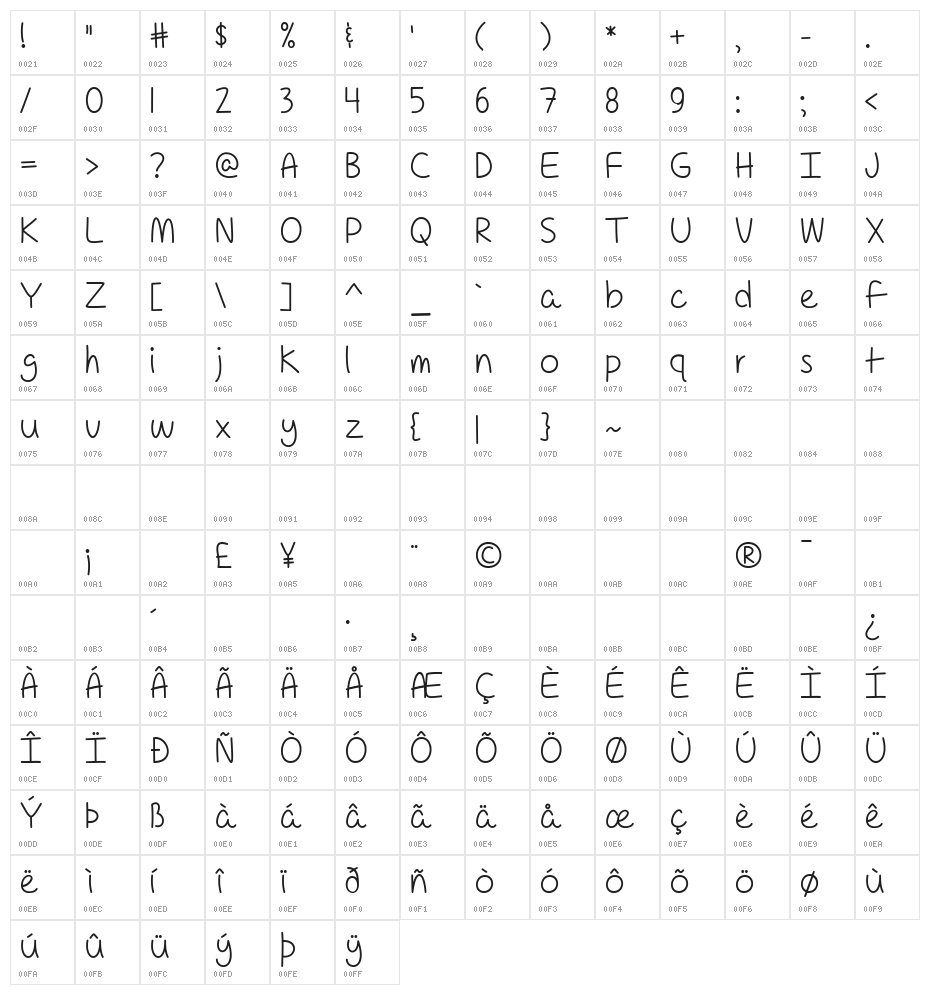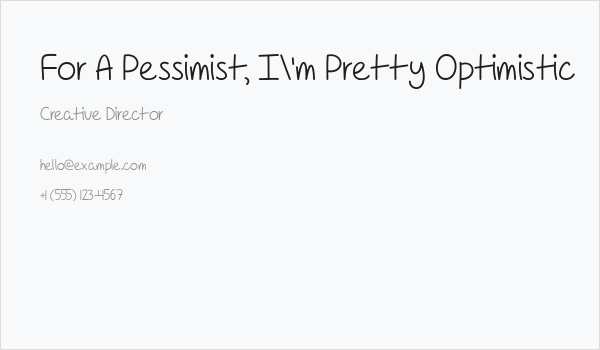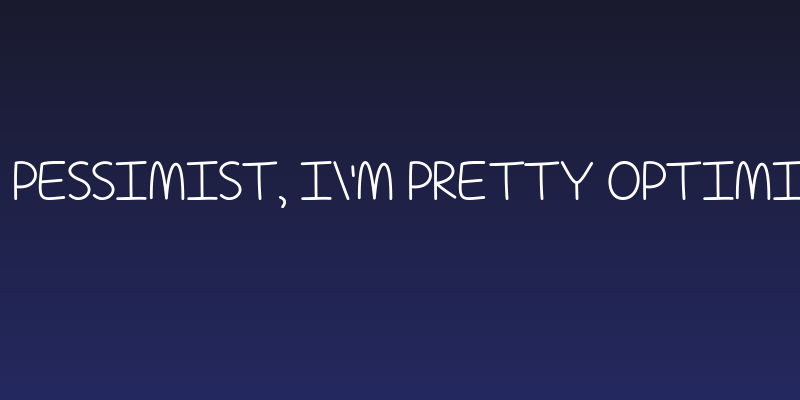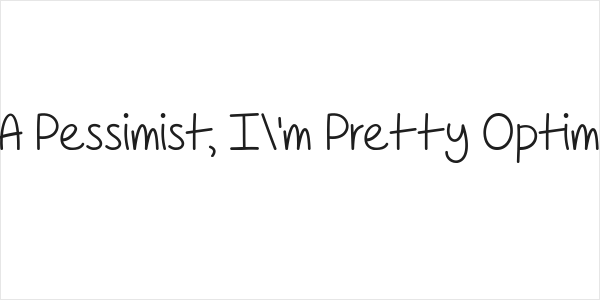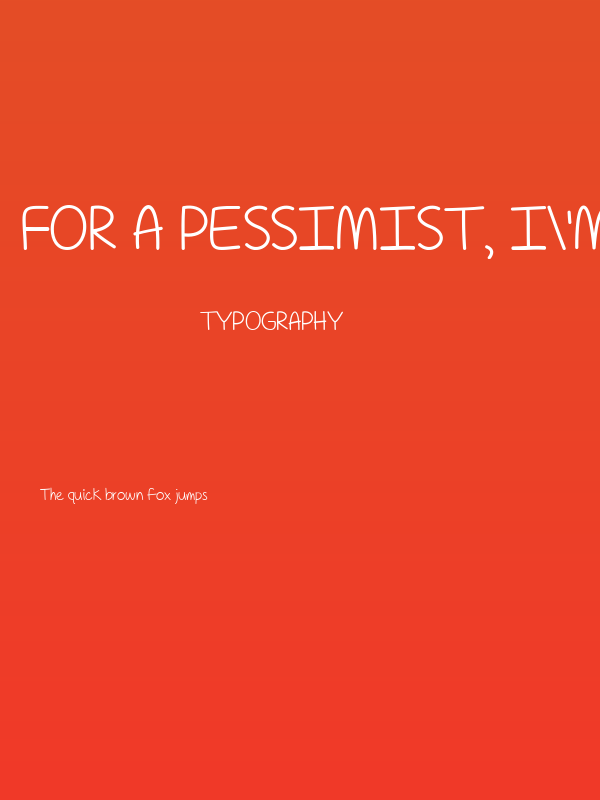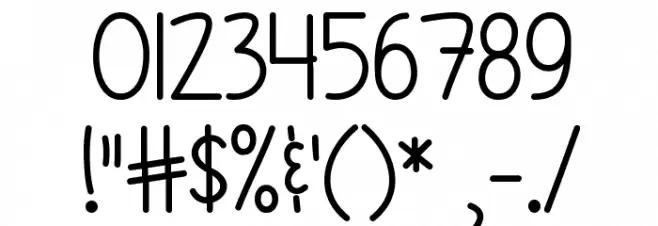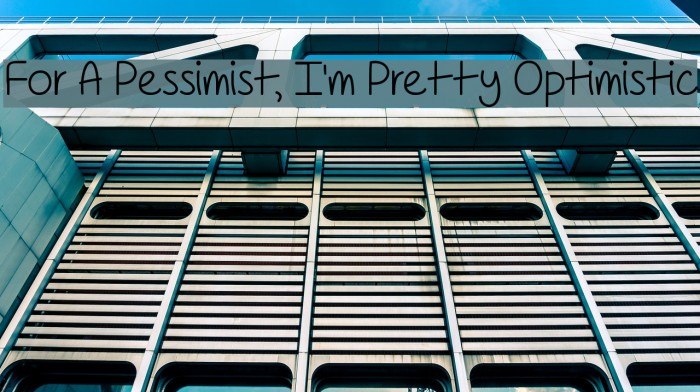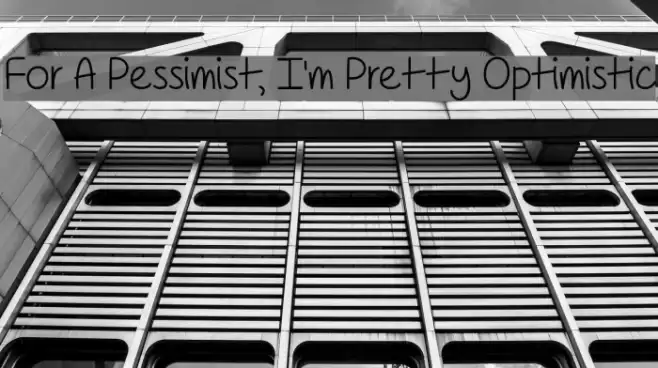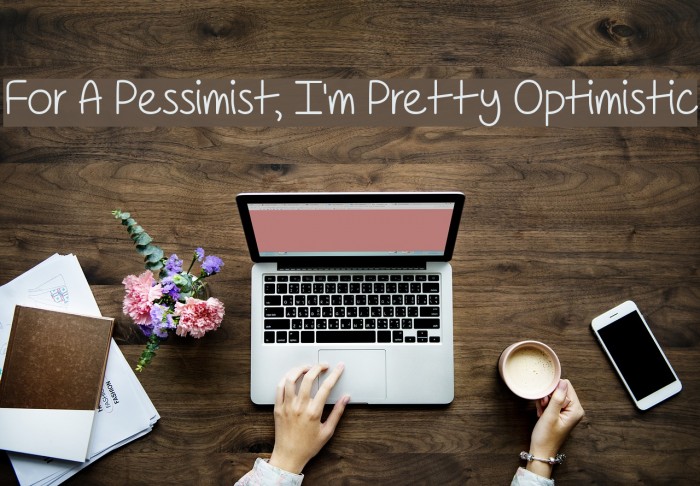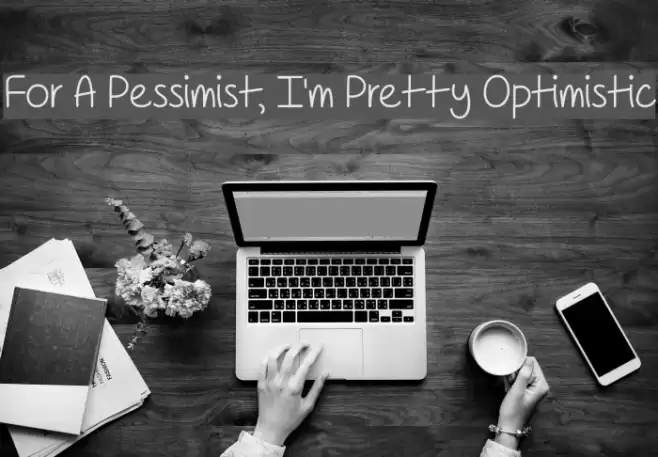
For A Pessimist, I'm Pretty Optimistic Font
For A Pessimist, I'm Pretty Optimistic Description
This font features a playful and casual handwritten style, characterized by its rounded and smooth letterforms. The strokes are consistent in width, giving it a uniform appearance. The uppercase letters are slightly taller than the lowercase, maintaining a friendly and approachable look. The numerals and special characters follow the same style, ensuring coherence throughout. Its simplicity and legibility make it suitable for informal and creative projects, adding a personal touch to any design.
| Overall Style | Casual |
| Use Case | Headlines, Informal text, Creative projects |
| Proposed Projects | Ideal for greeting cards, children's books, personal blogs, and informal branding. |